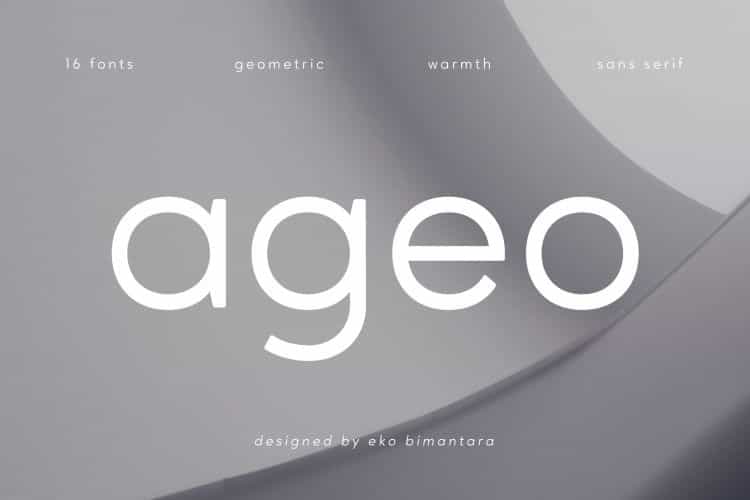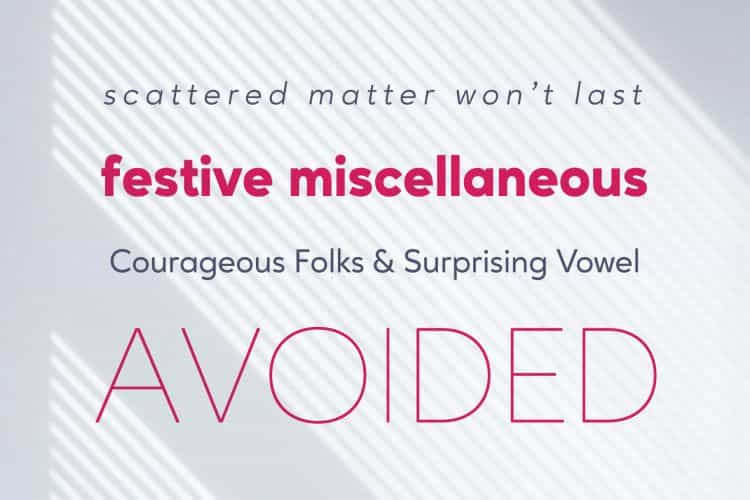
Ageo is a geometric sans serif font family designed by Eko Bimantara. It’s contain 8 weight from Thin to Heavy with each matching Italics. It’s shown a clean, minimalist, elegant warmth, quirky, yet still purposed to be versatile and easy to read. Fit for various design or creative project. It’s contain several opentype features as: standard ligature, figures variation , fraction, numerator, second, standardized , denominator, and also multilingual support.